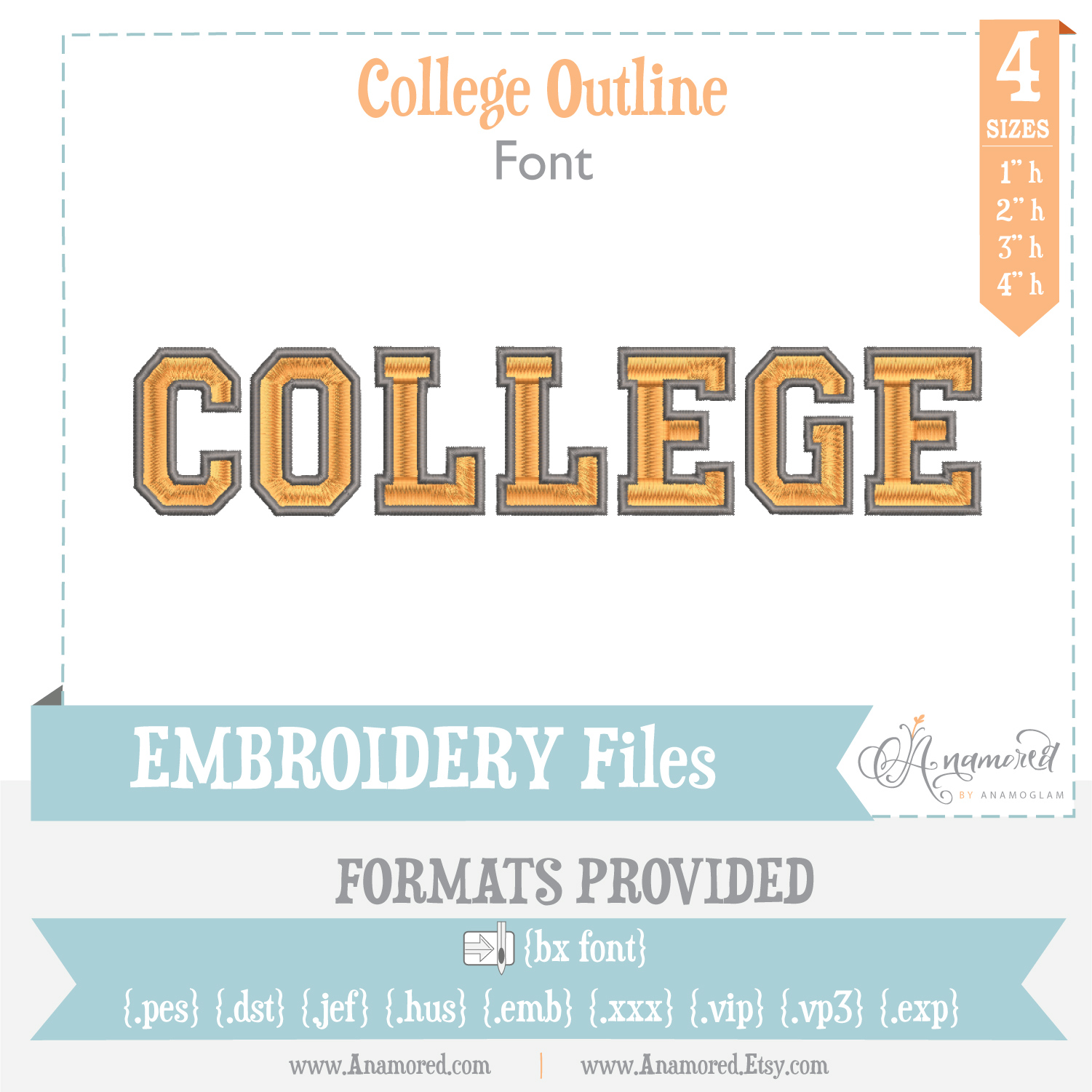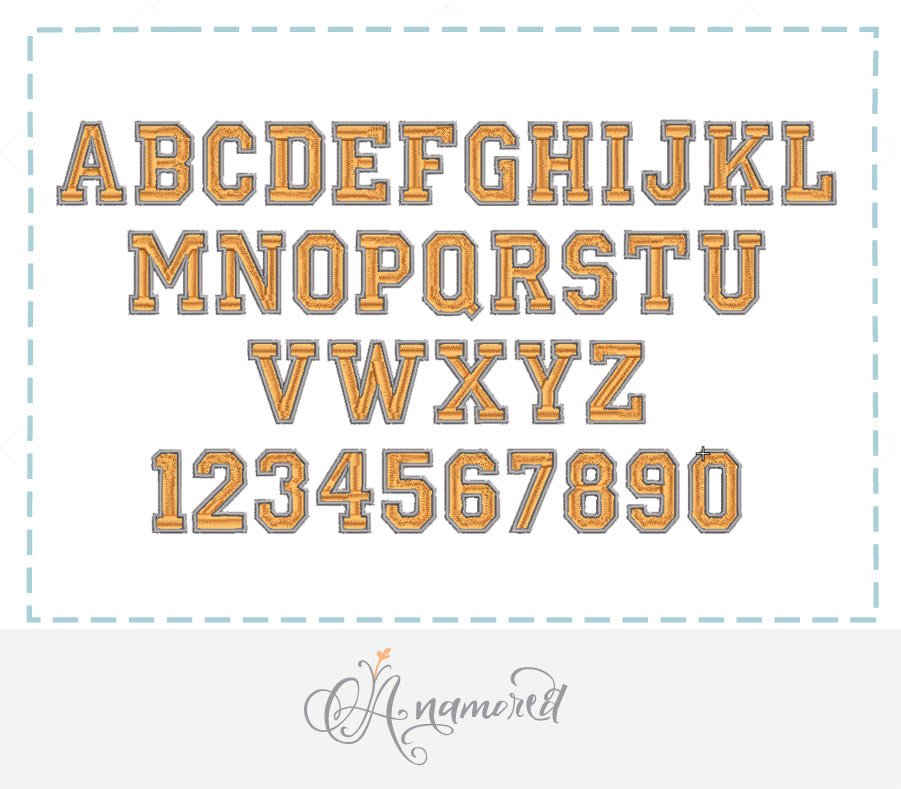
4 sizes Varsity College Outline Embroidery Font
Varsity college school embroidery font with border outline.
Uppercase and numbers only.
2 color Split satin stitch for inside, Satin border for outline.